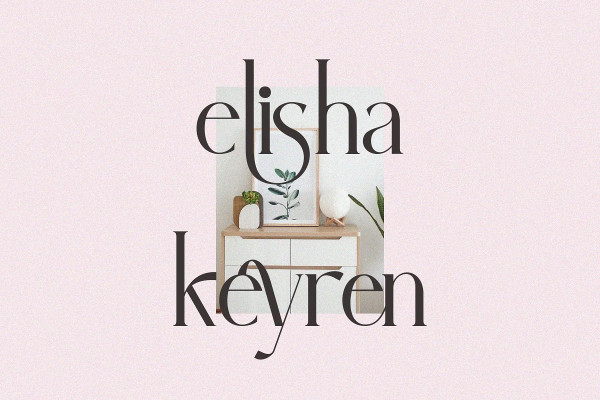
Beamont Font
Beamont Font, our latest creation, modern serif with various alternates and ligatures, multilingual support, an updated blend of bohemian style, suitable for branding, business, logos, magazines, and others